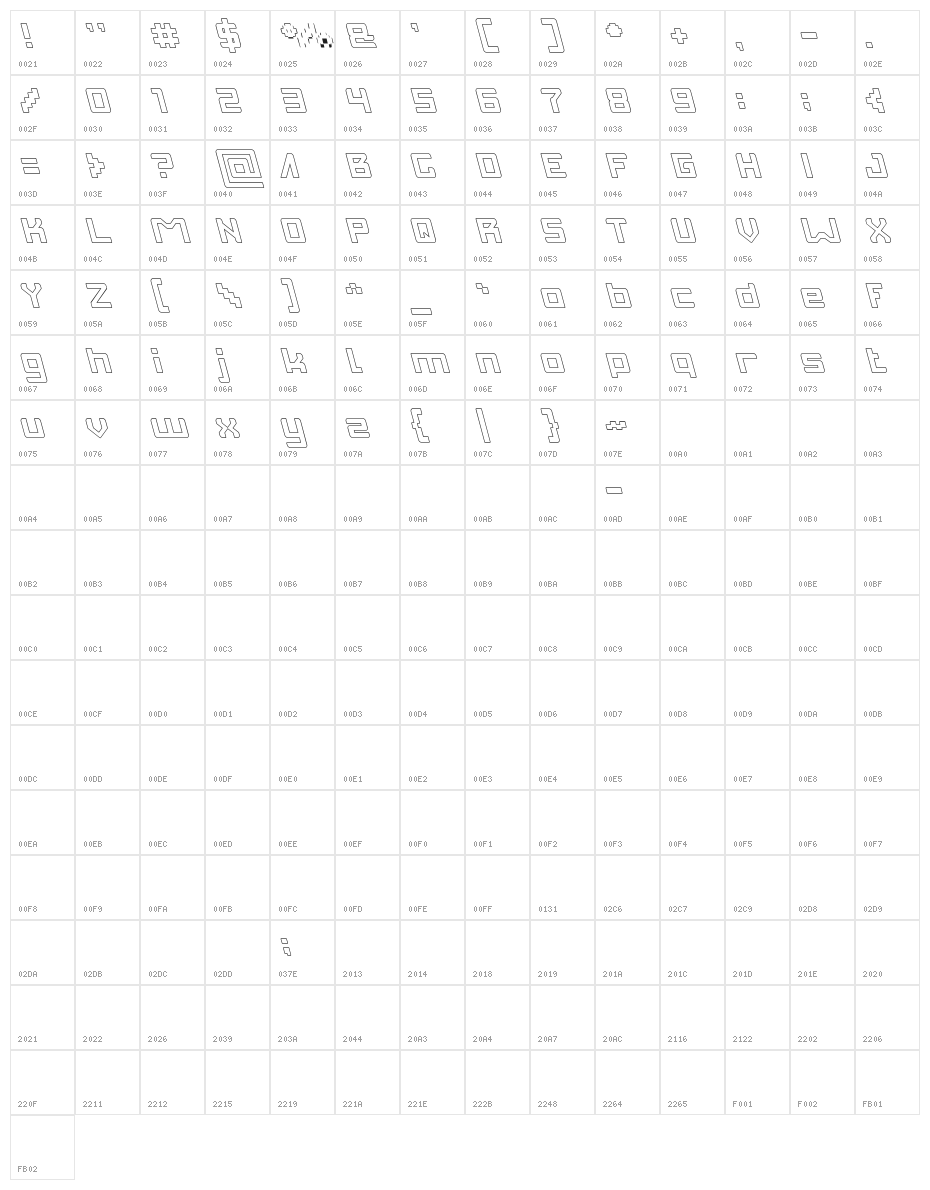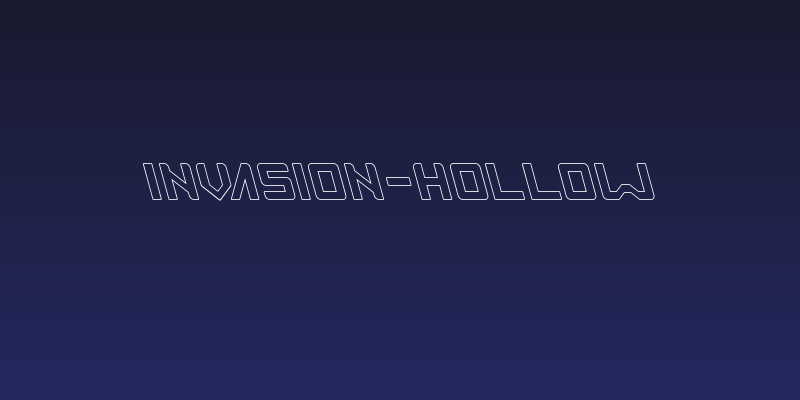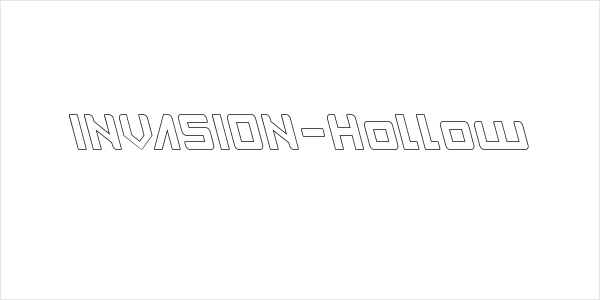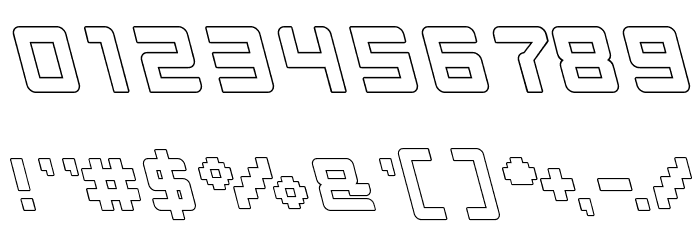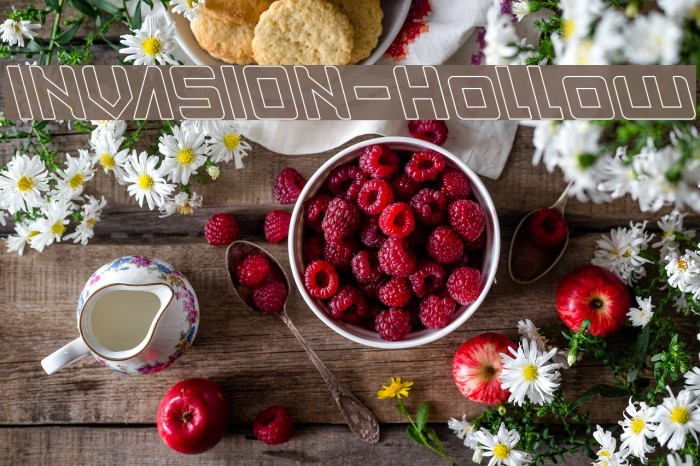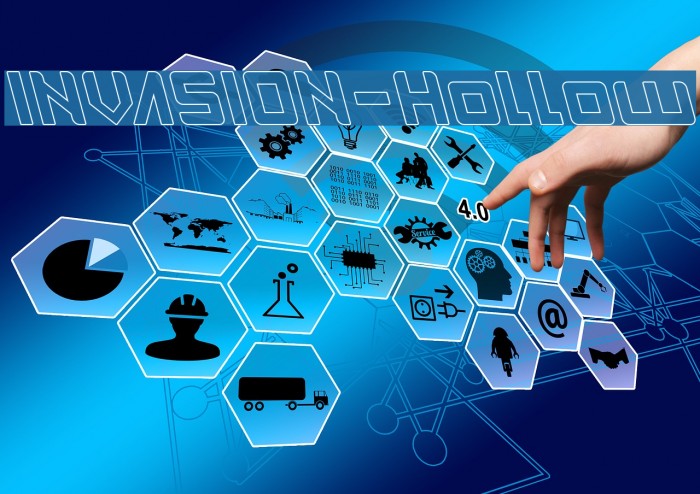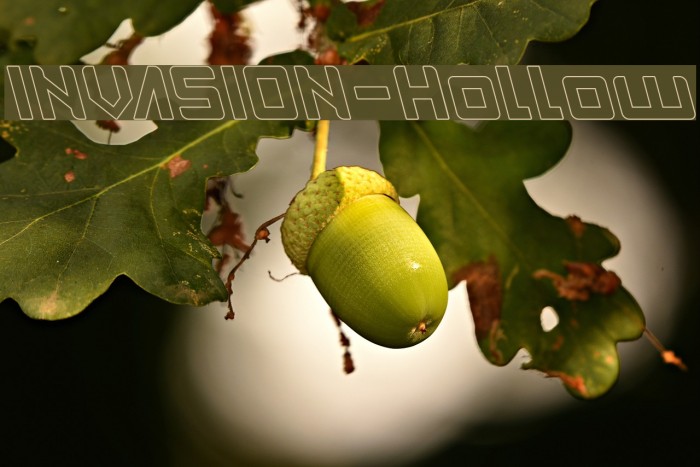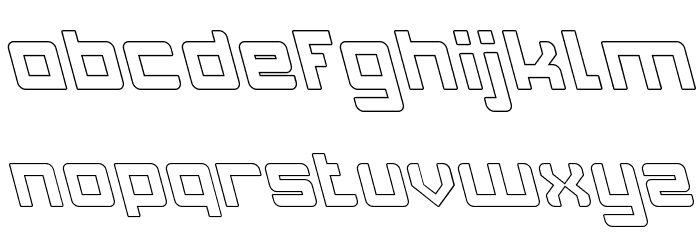
INVASION-Hollow Font
INVASION-Hollow Description
This font features a unique hollow design with a futuristic and geometric aesthetic. Each character is outlined, creating a bold and eye-catching appearance. The angular and sharp edges give it a modern and tech-inspired feel, making it ideal for projects that require a standout visual impact. The uppercase and lowercase letters maintain a consistent style, while the numerals and special characters complement the overall design. This font is perfect for creative projects that aim to capture attention with its distinct and innovative look.
| Proposed Projects | Ideal for sci-fi themed posters, tech branding, video game titles, and futuristic event invitations. |